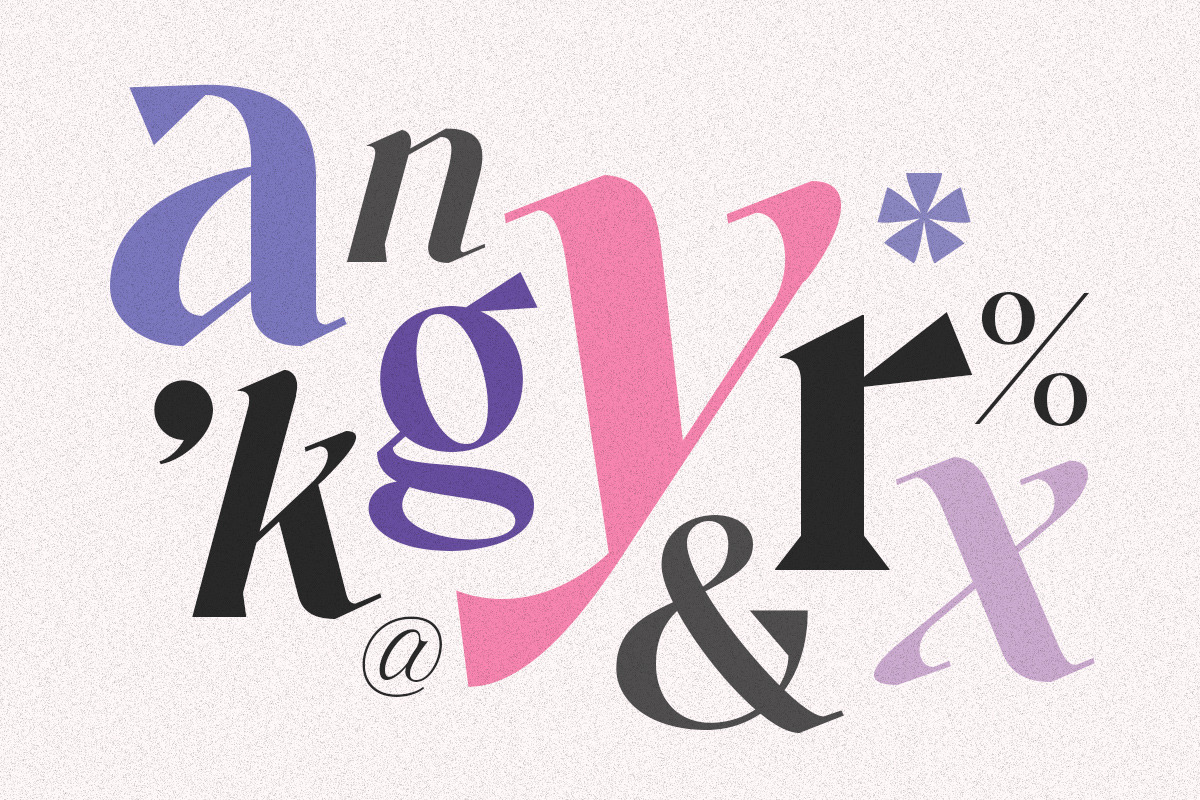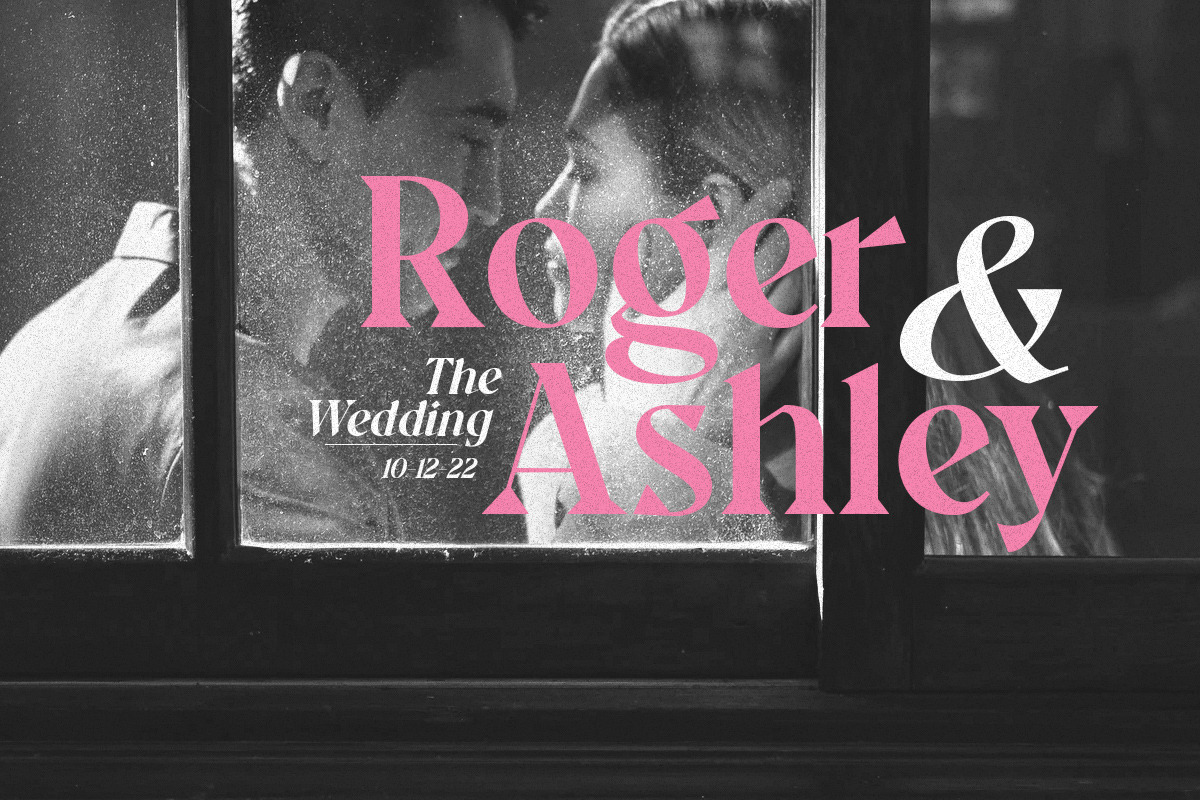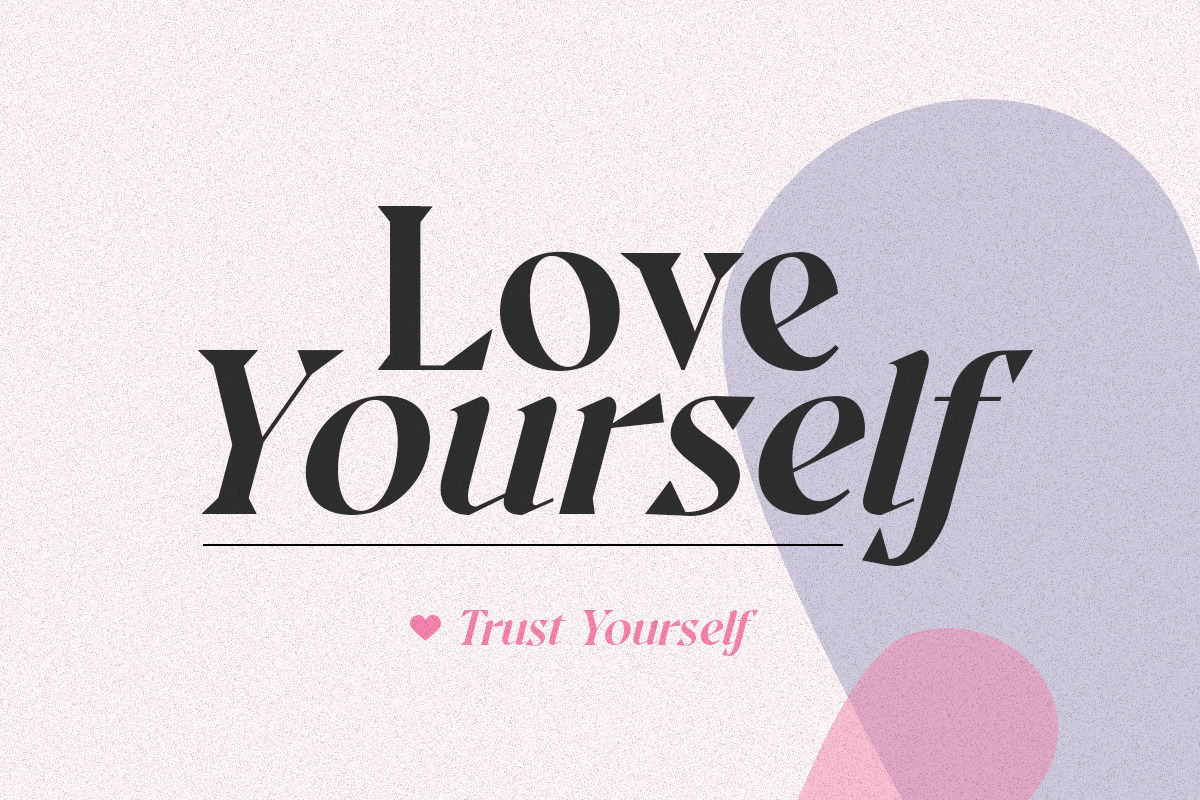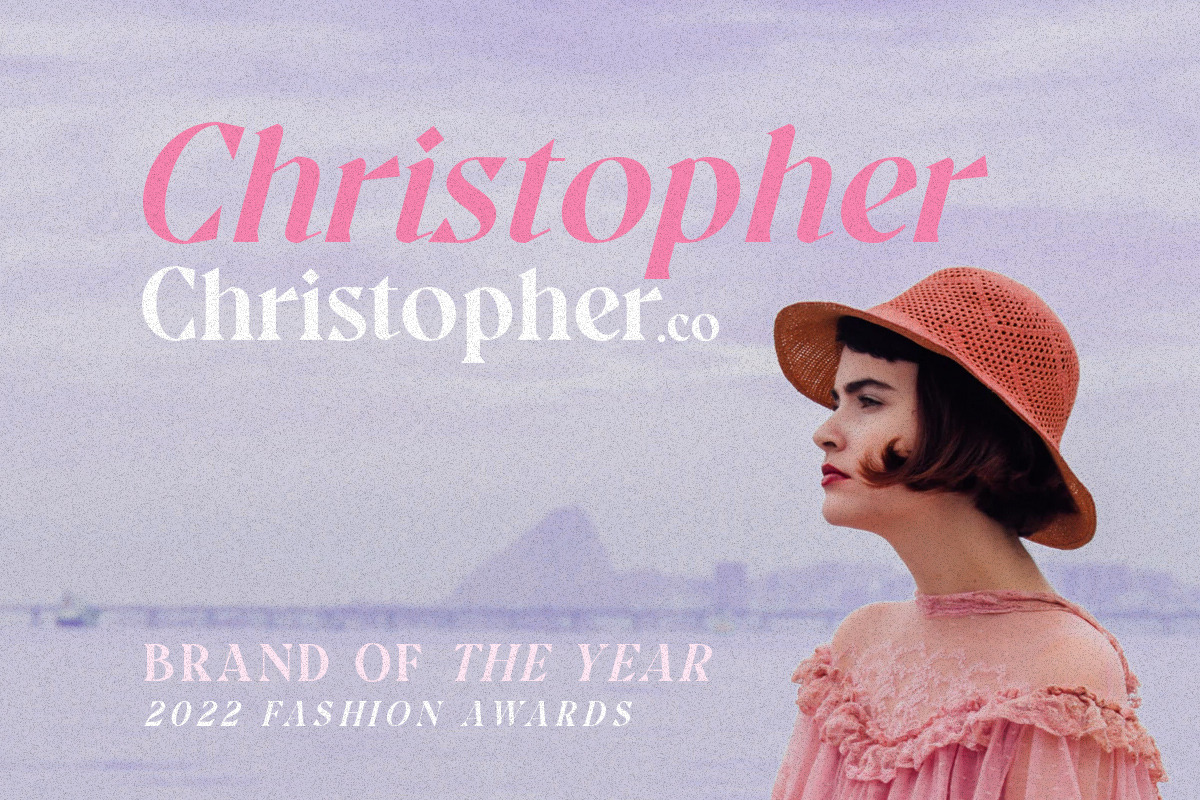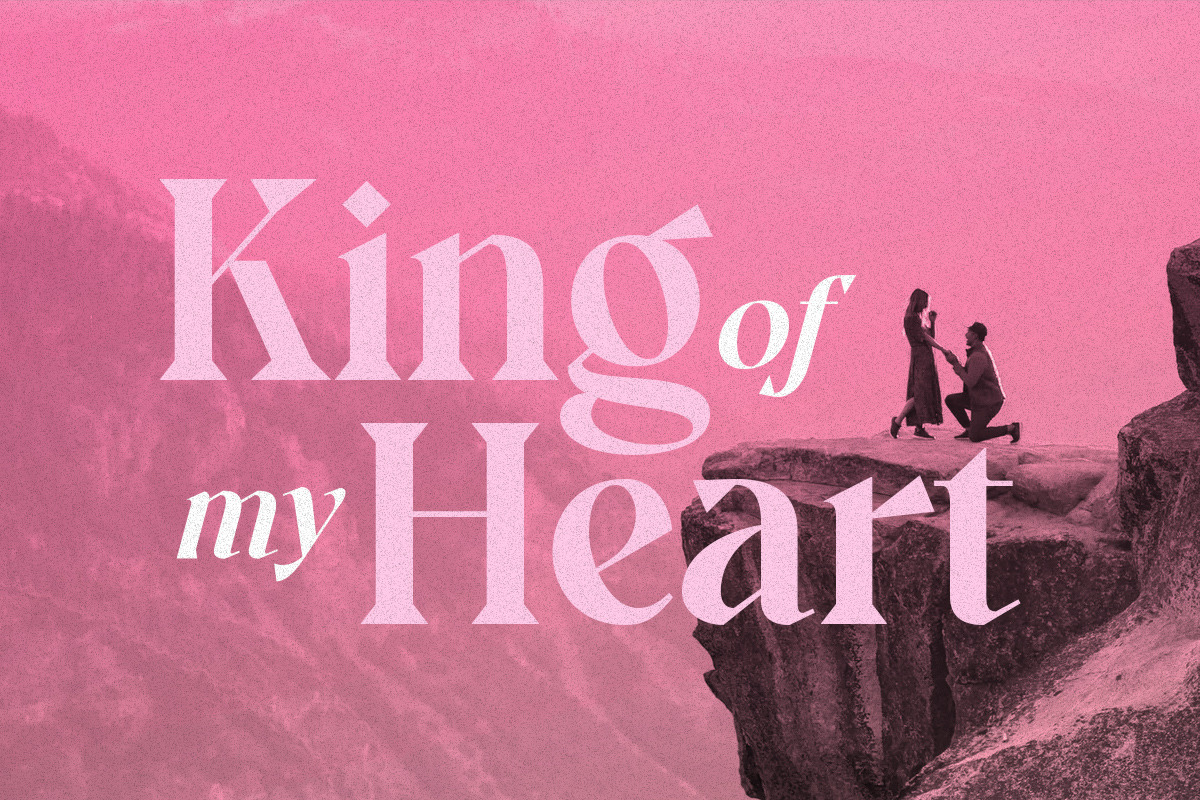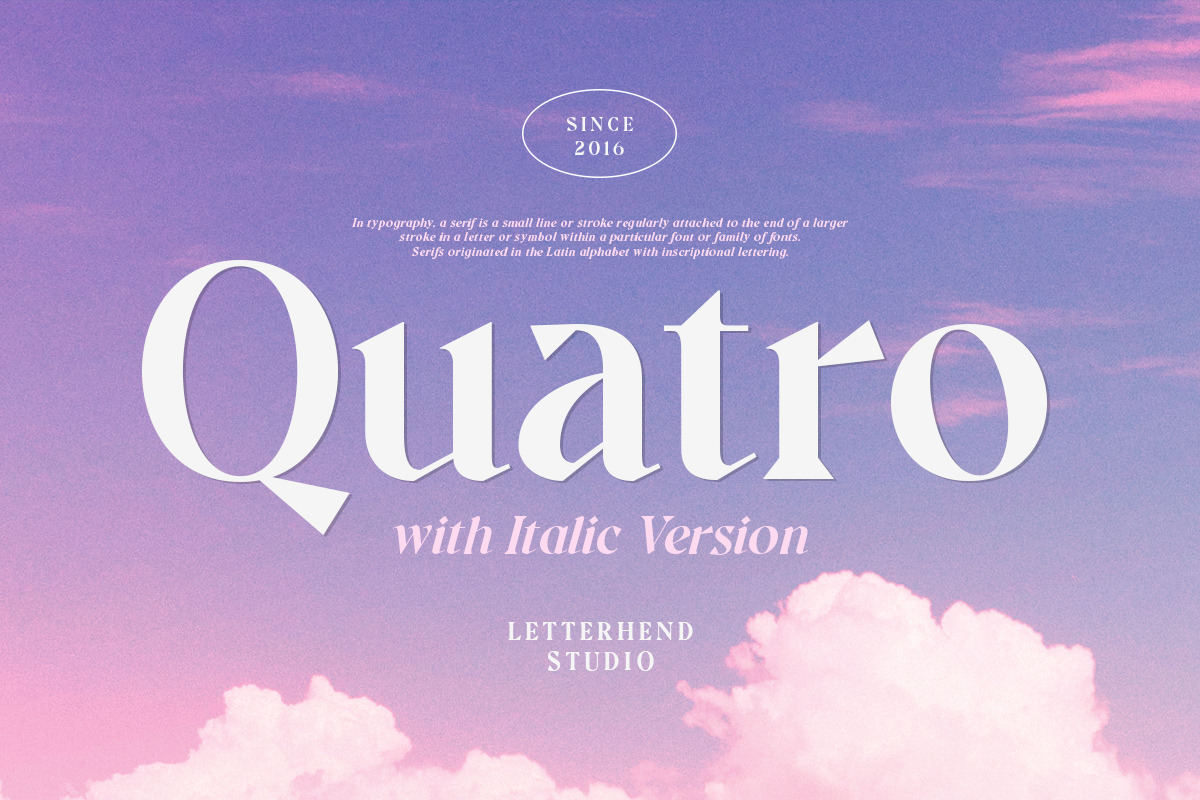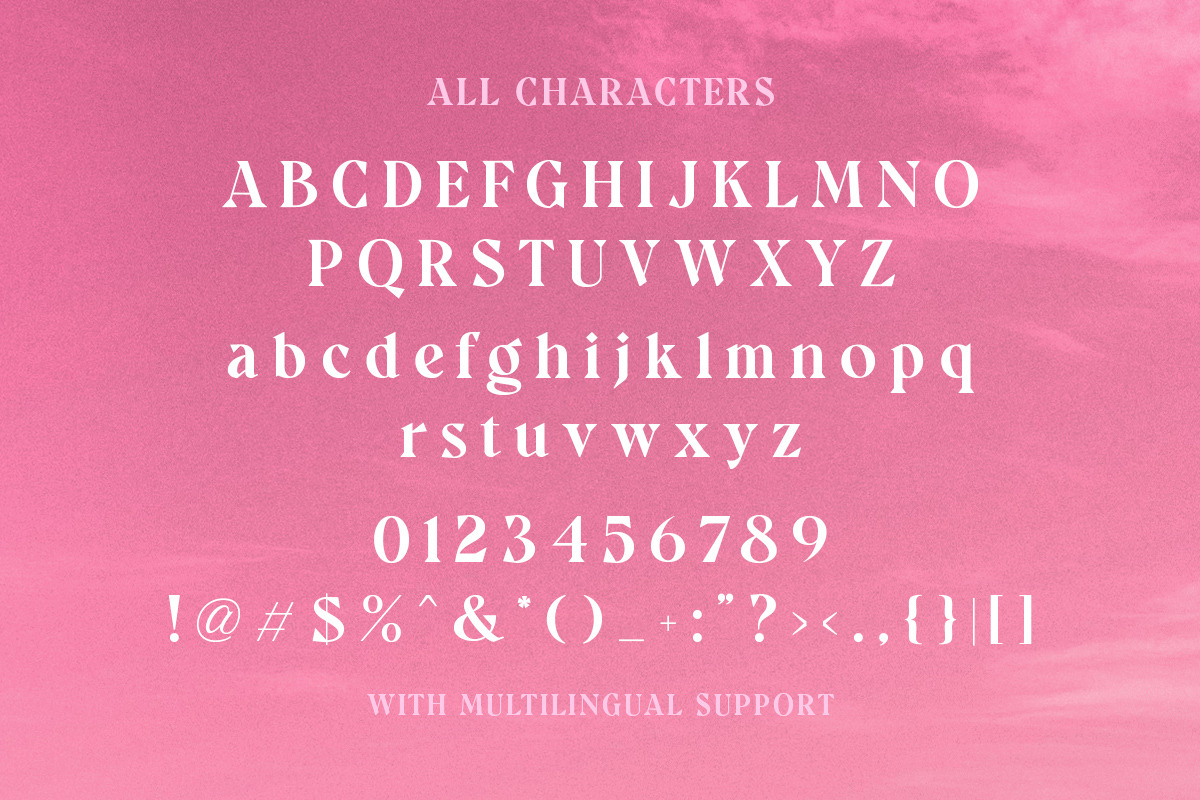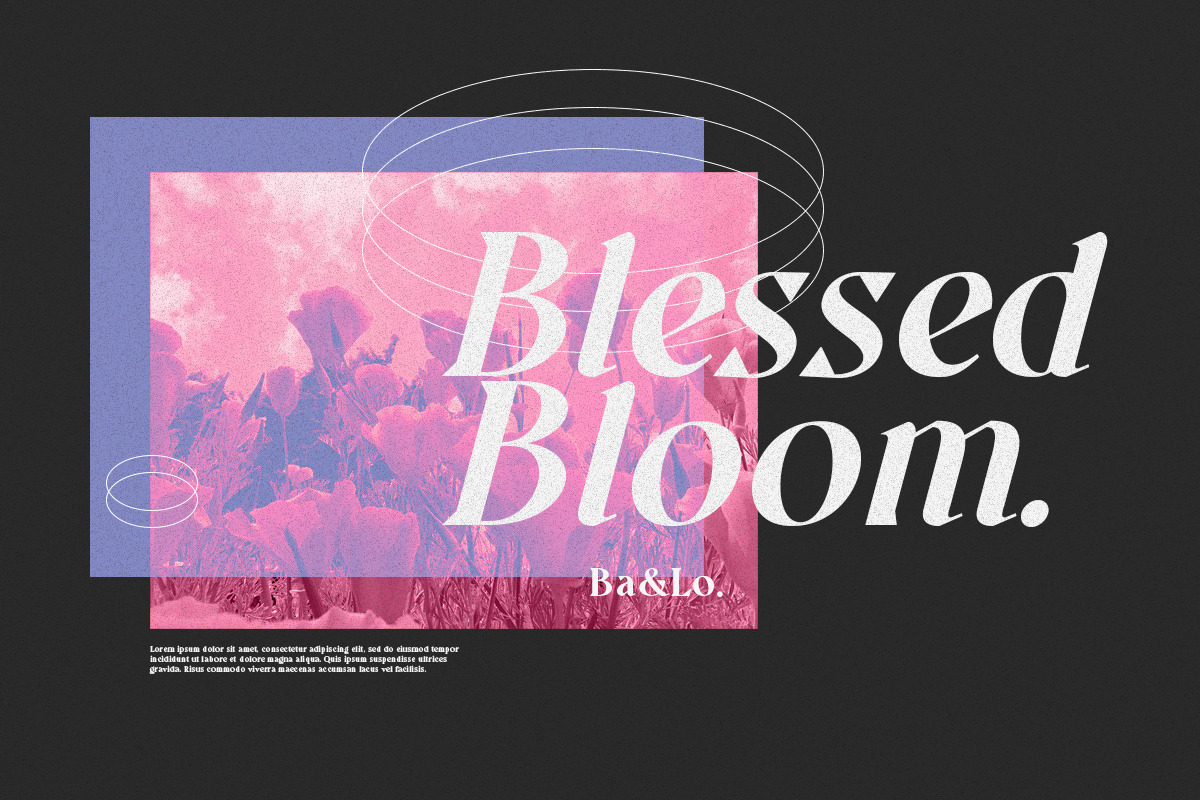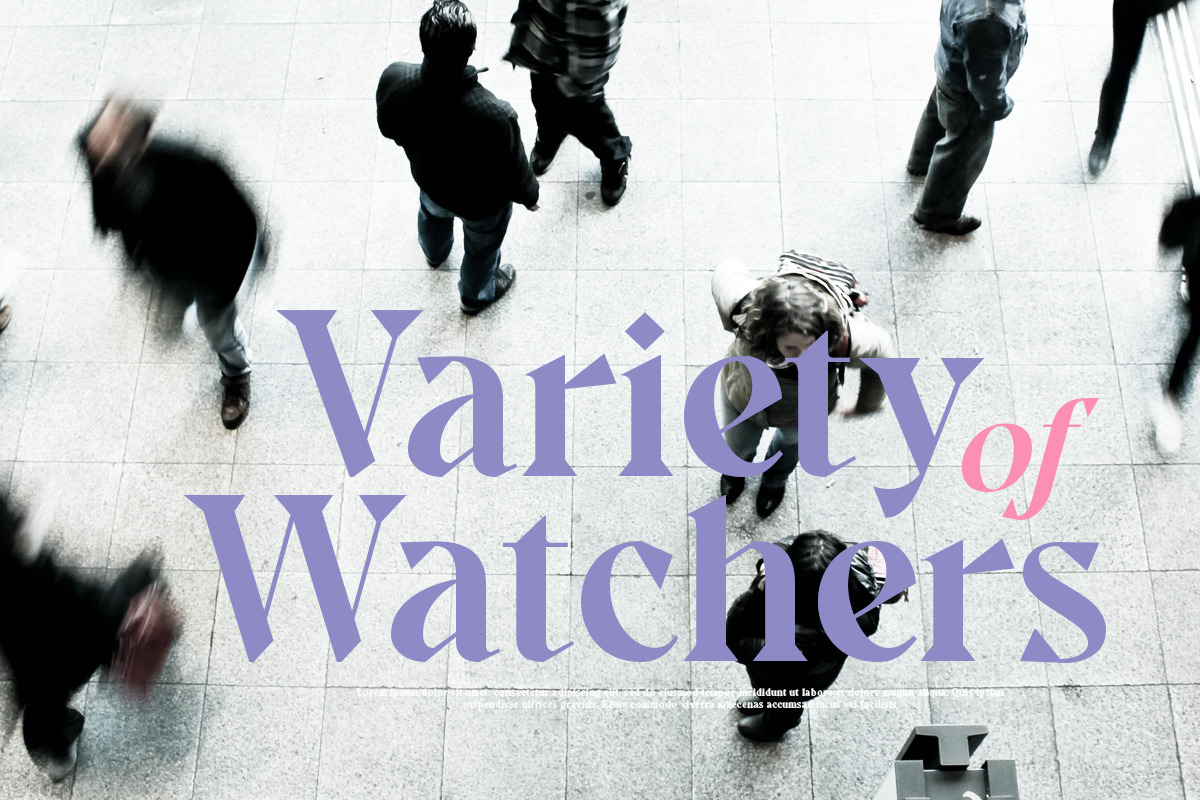
Quatro - A Modern Serif Font
Introducing, Quatro - A Modern Serif Font. This font perfectly made to be applied especially in logo, and the other various formal forms such as invitations, labels, logos, magazines, books, greeting / wedding cards, packaging, fashion, make up, stationery, novels, labels or any type of advertising purpose.